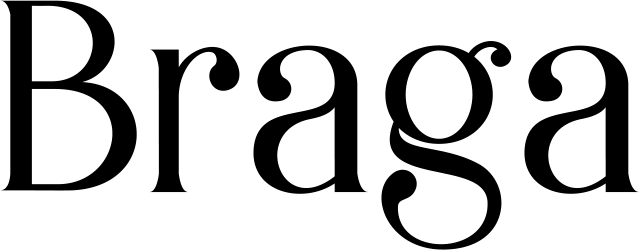
Klarinda Playful Font
Klarinda Playful font is one of the very different serif font designs that in some characters, you see a special cursive and swashes. This font is most used in the design of flyers and summer posters, old-fashioned retro themes, and anything that could be friendly.
But this pleasant design with an adventurous mode can play an essential role in designing movie posters, T-shirts, postal cards, and many more.
Designed by: Typetemp Studio